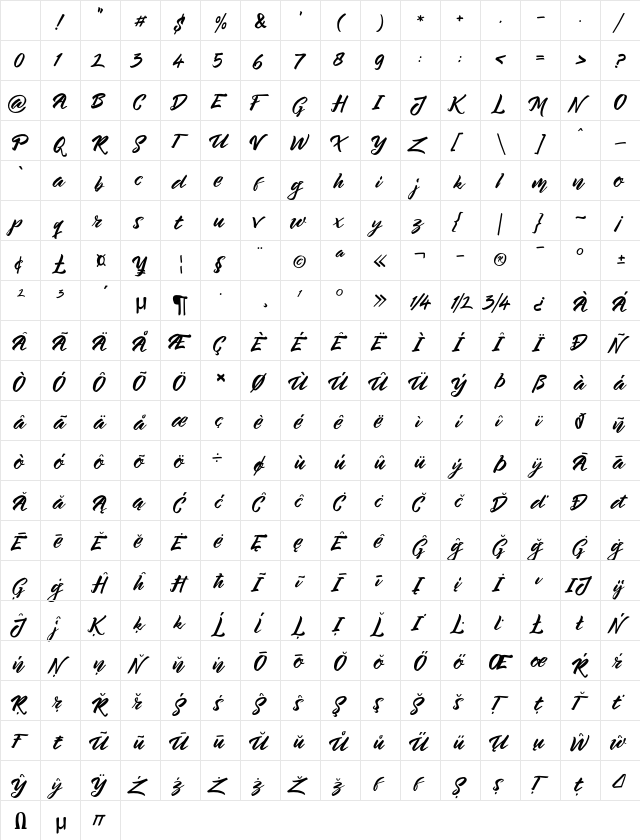
Complete The Beard FREE PERSONAL US Regular glyph index. Displaying only characters natively supported by The Beard FREE PERSONAL US Regular font.
The Beard FREE PERSONAL US is a composed and adaptable typeface that performs quietly and consistently across a wide range of design contexts.